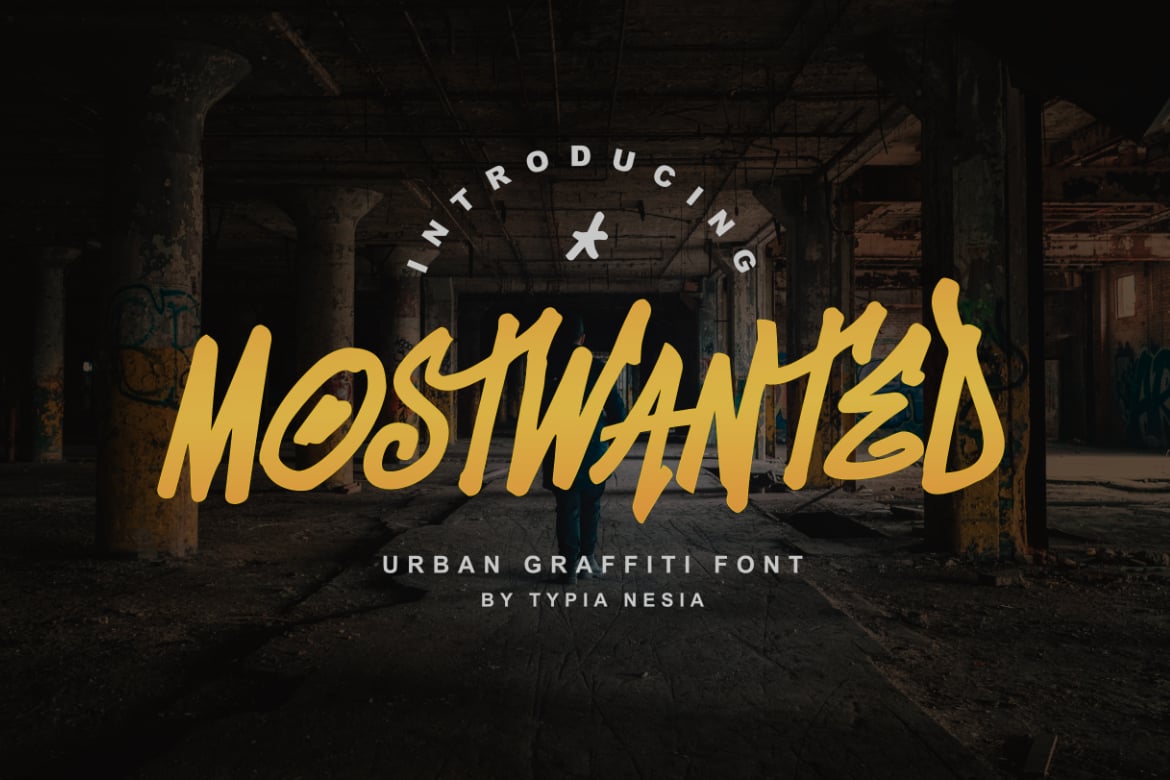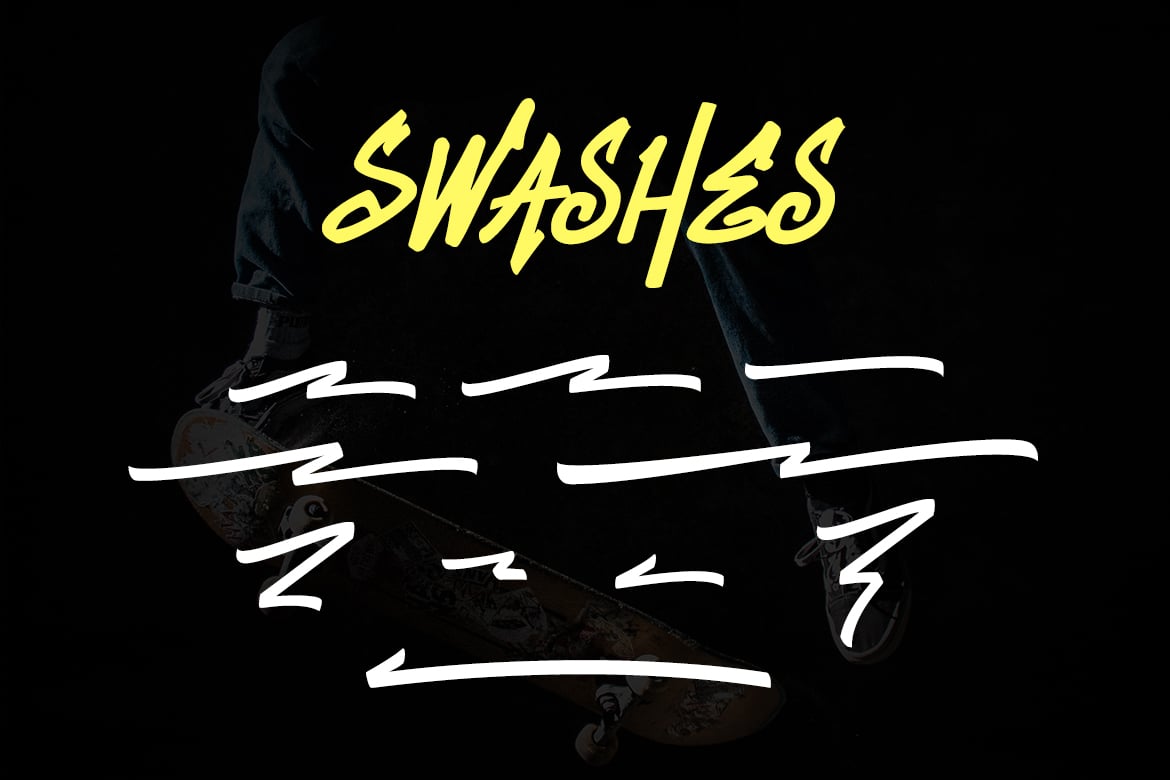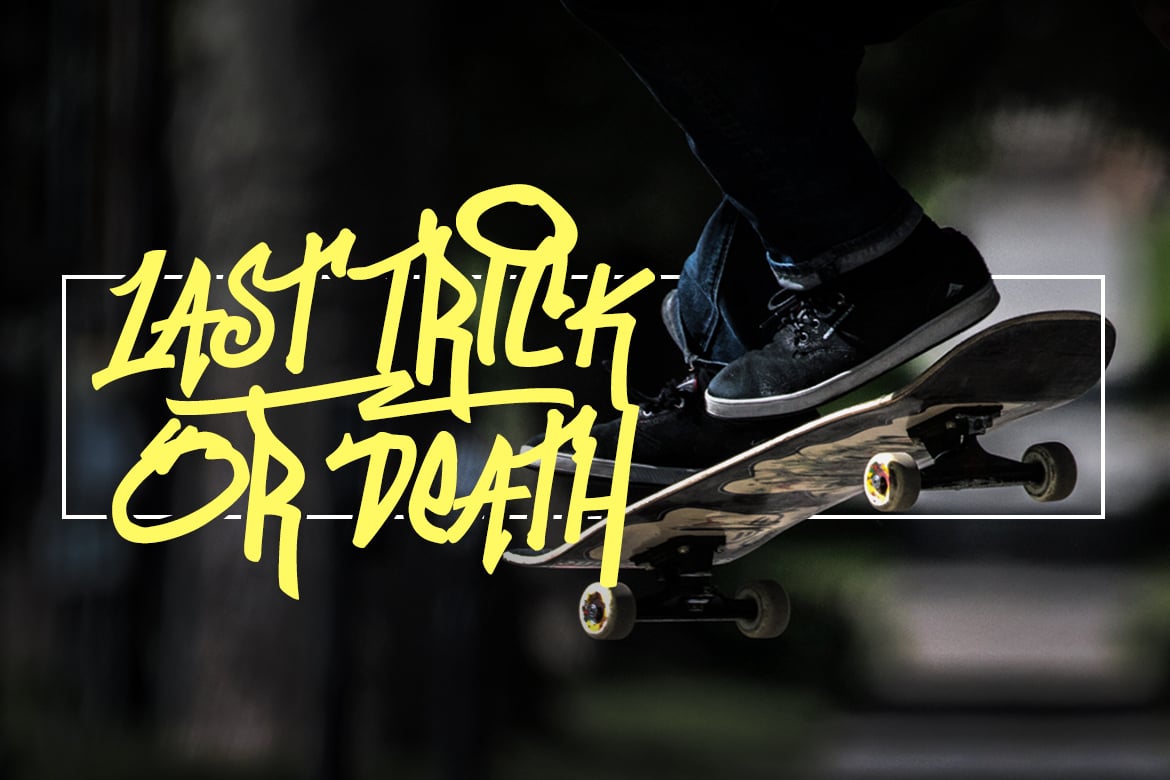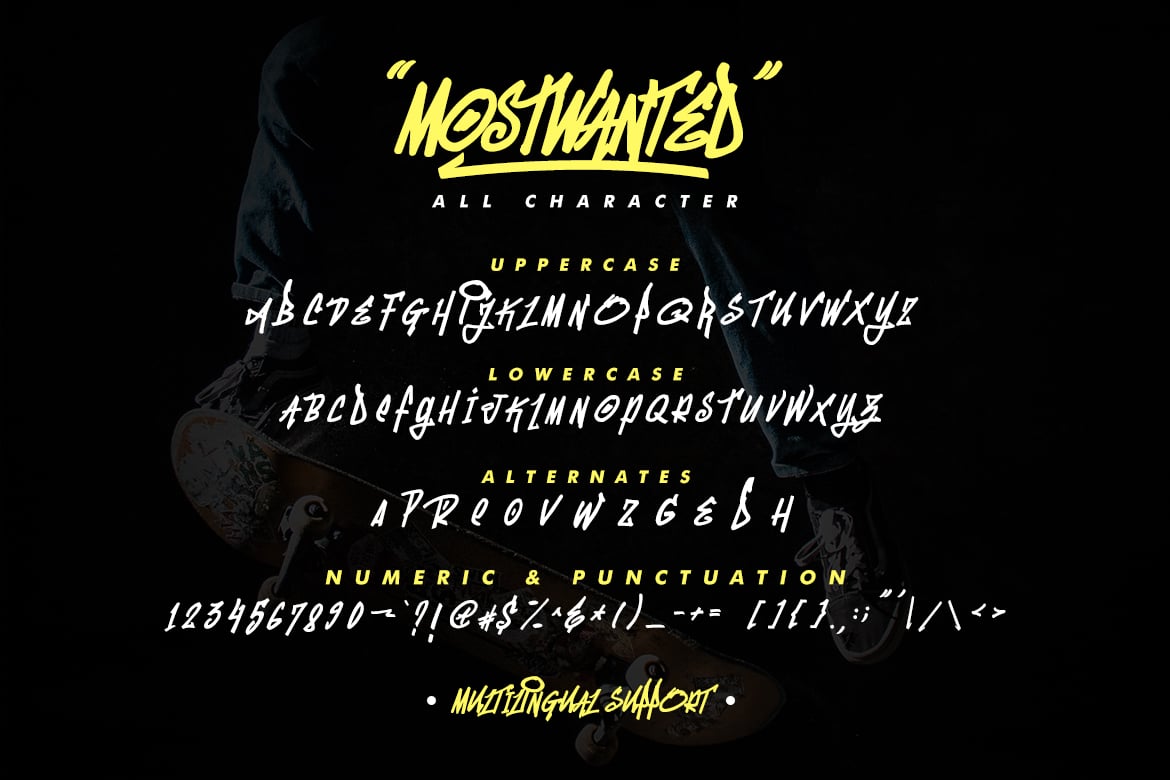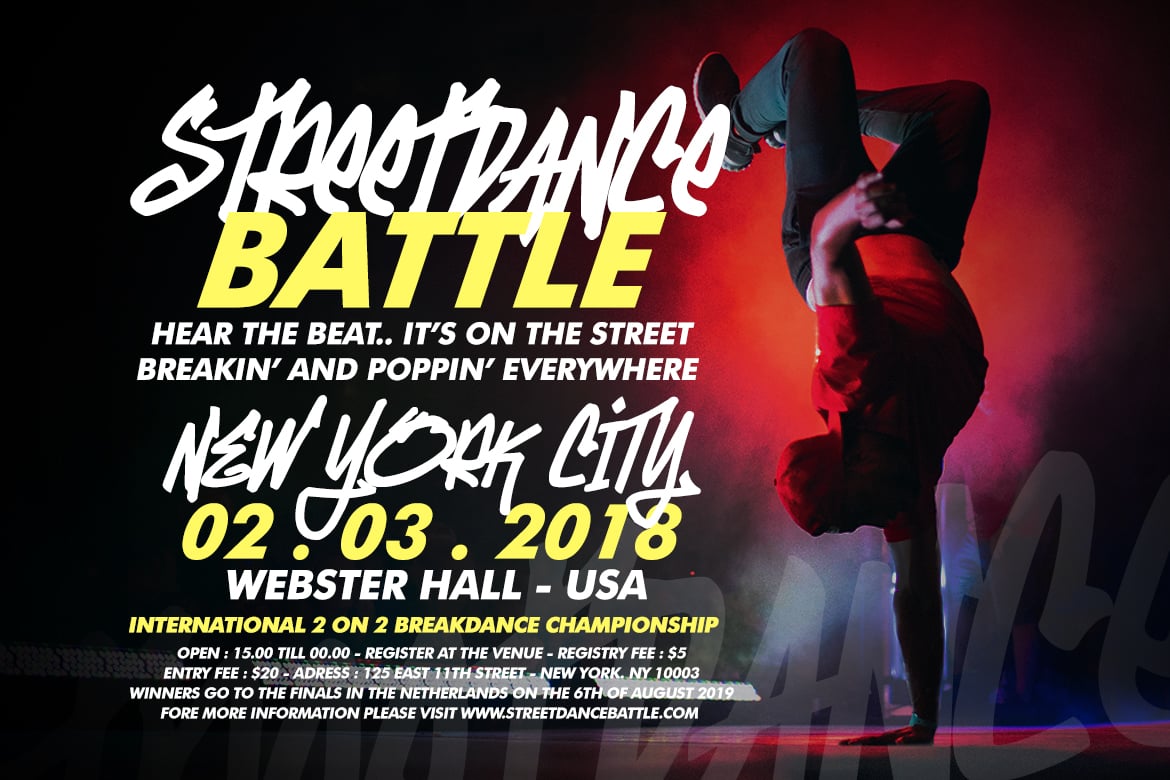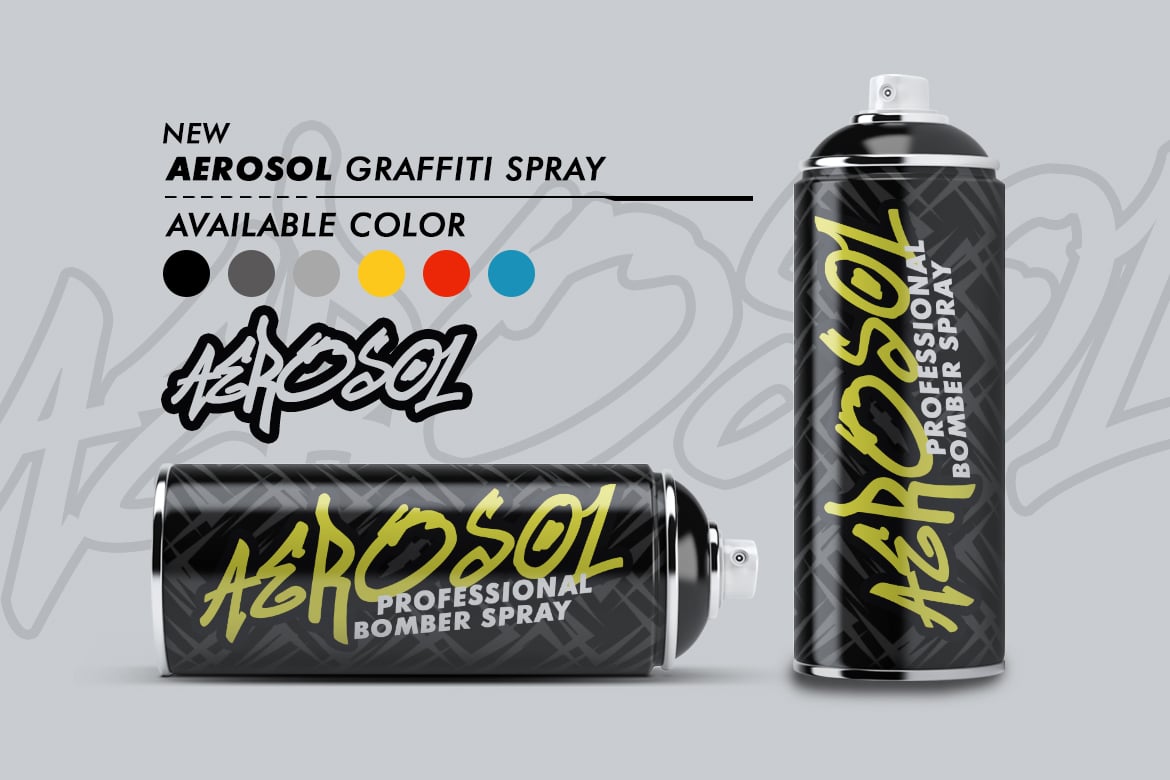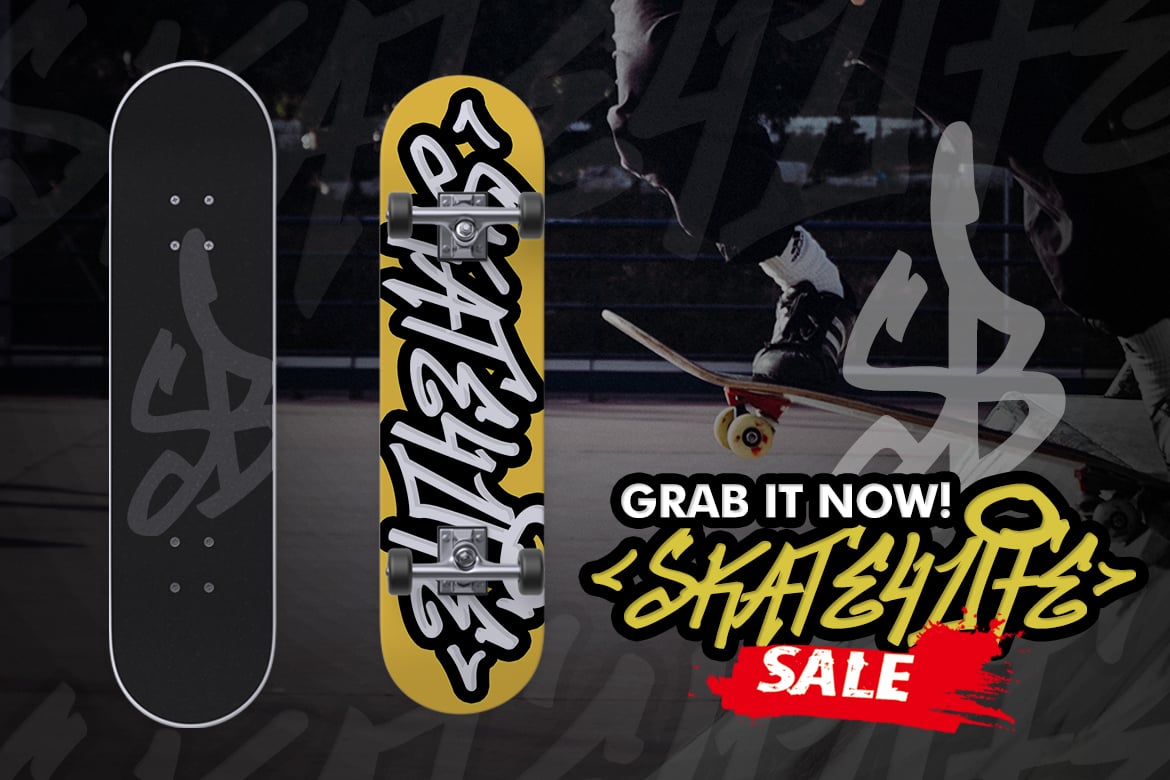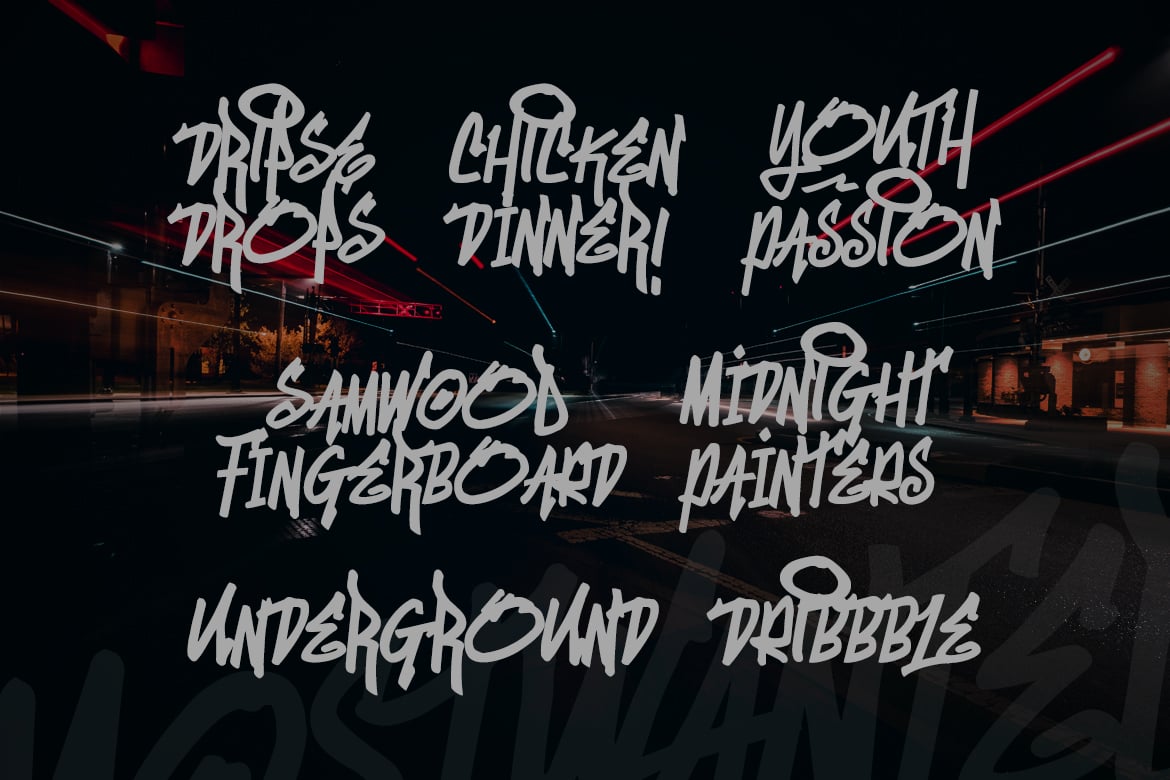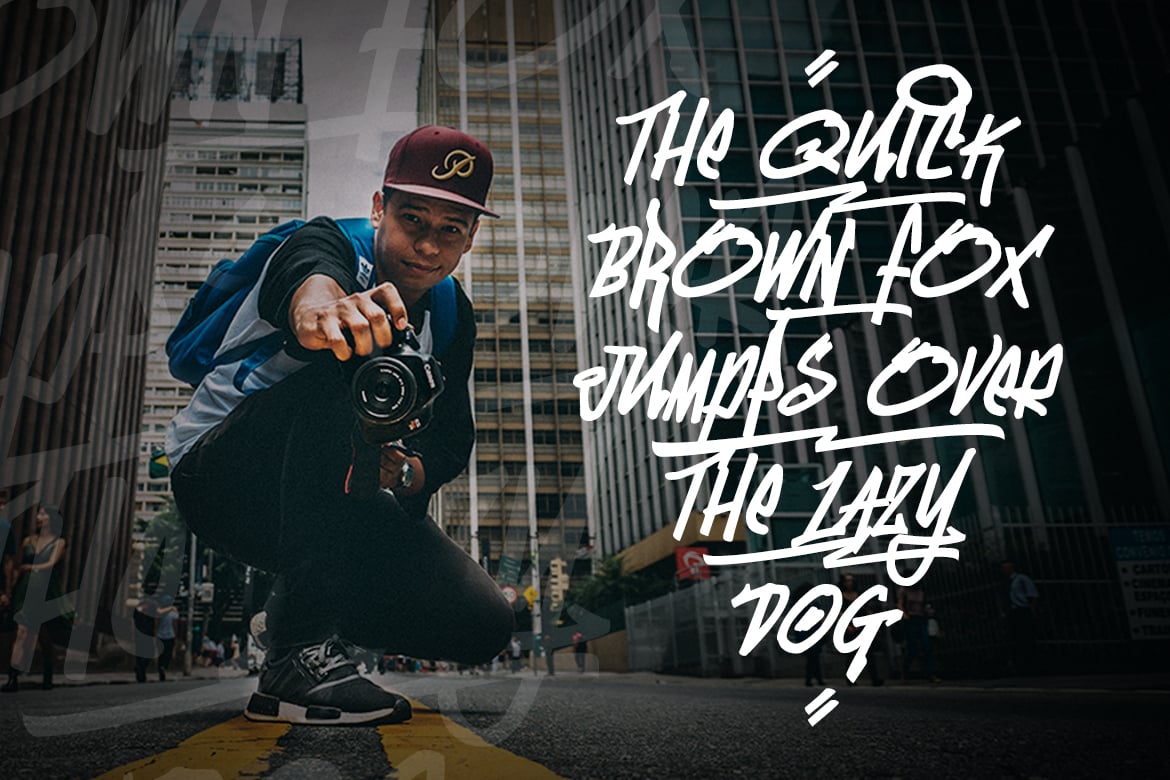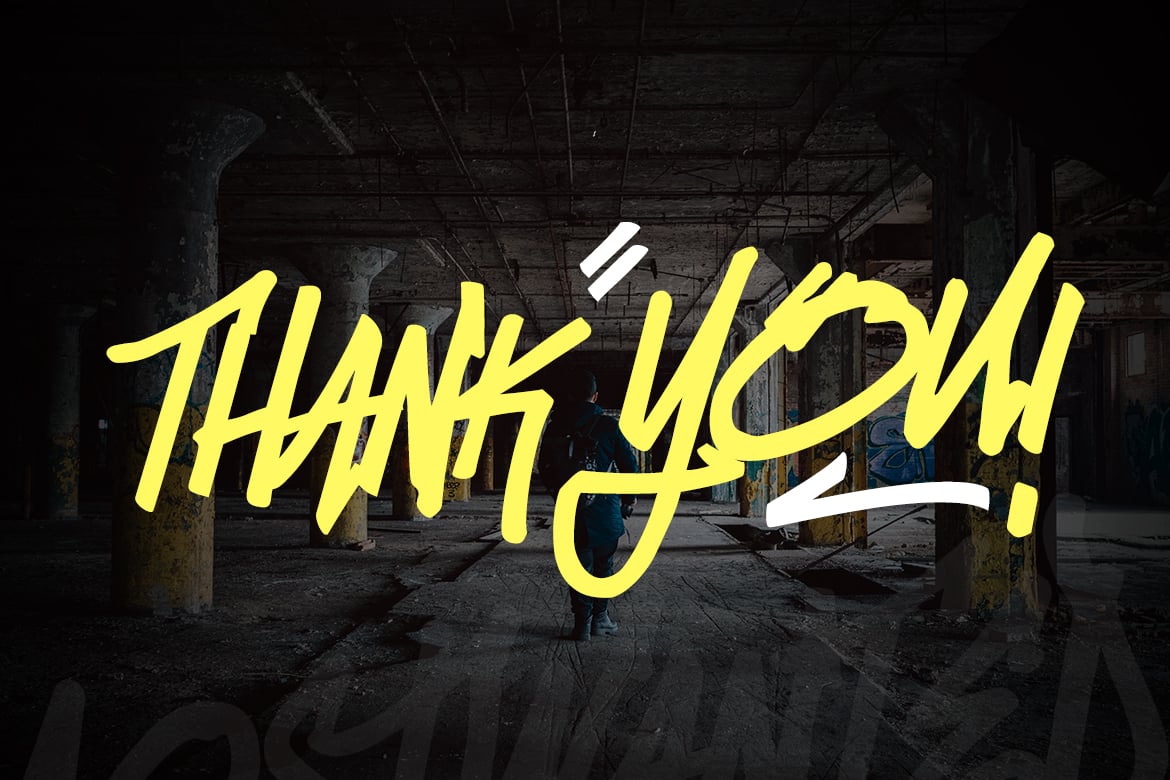
MostWanted Graffiti Font
Mostwanted is an urban graffiti font. You can mix the uppercase and lowercase and the alternative glyphs to create the cool combination.
- Includes a range of multilingual characters.